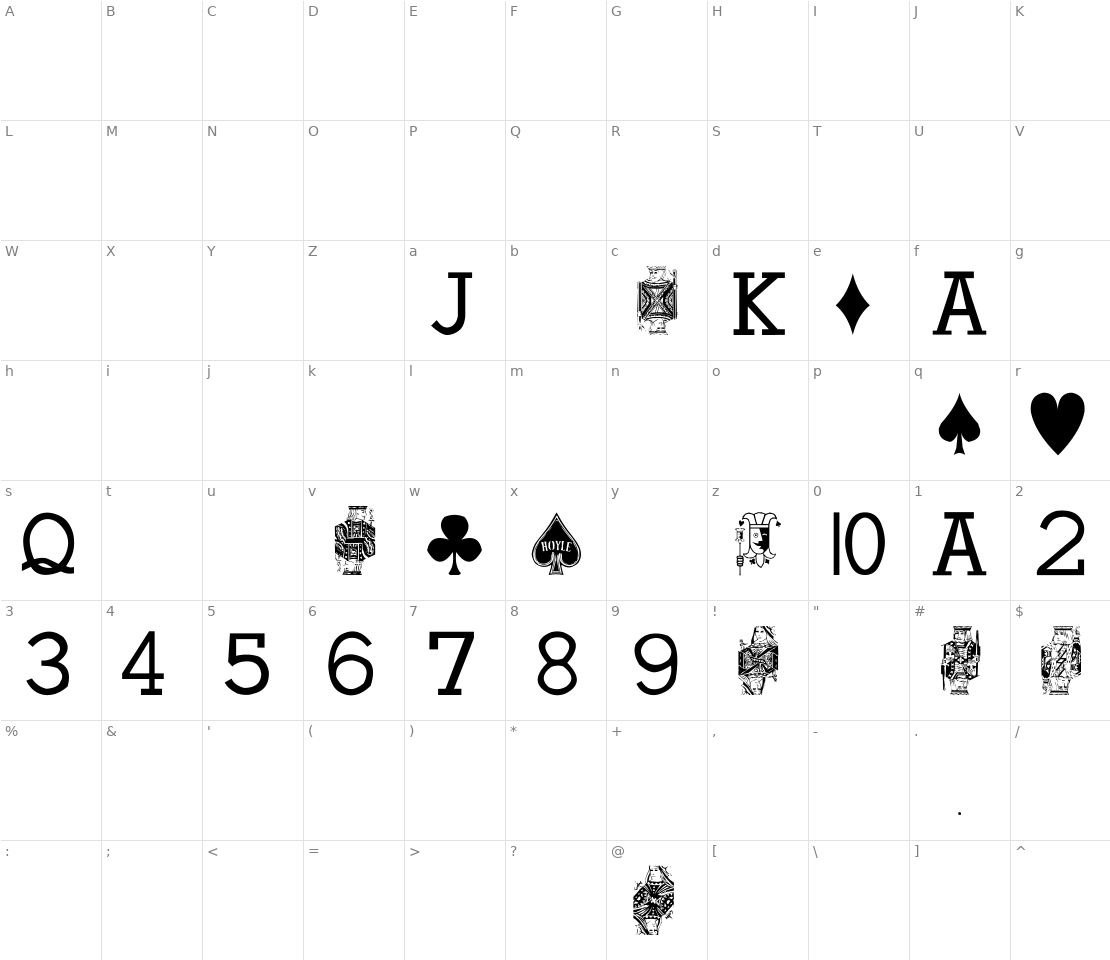
Hoyle Playing Cards
by Conexion
Hoyle Playing Cards is a symbol font from Conexion featuring the standard playing card suits: spades, hearts, diamonds, and clubs. It's a utilitarian set of decorative glyphs rather than a traditional alphabet, designed for card game graphics, poker night invitations, casino-themed layouts, and anywhere you need clean, recognizable suit icons without having to source separate vector artwork.